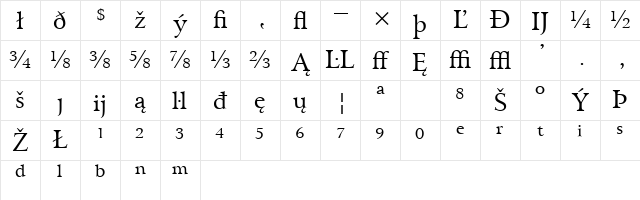
Arrus Ext BT Extension
Style: Extension
Design Context for Arrus Ext BT
Arrus Ext BT is a composed and adaptable typeface that performs quietly and consistently across a wide range of design contexts.